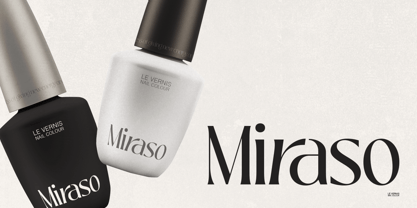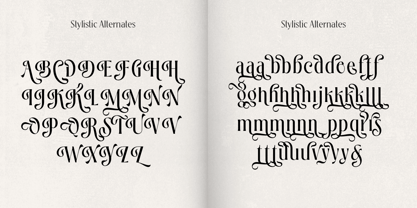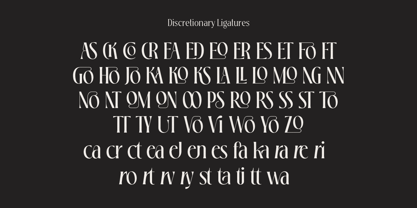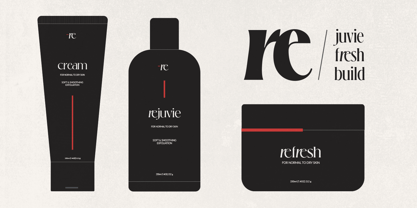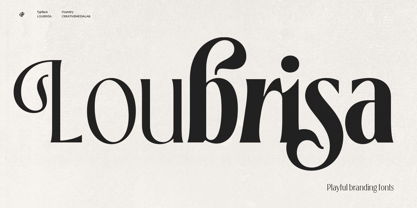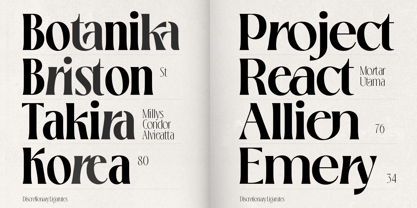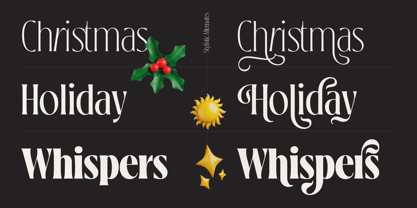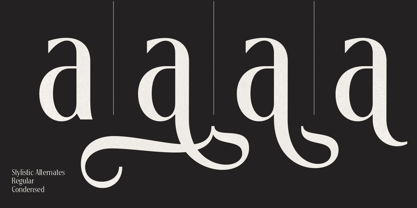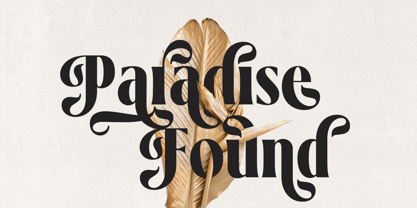
Loubrisa
The Loubrisa Font Family was designed by Kadek Mahardika and published by Creativemedialab. Loubrisa contains 14 styles and family package options. More about this family
Introducing Loubrisa, an elegant and playful serif family, available in 2 widths, Condensed & Normal with a weight of 7 for each type. Loubrisa has many stylistic alternatives and ligatures, suitable for Titles or concepts related to fashion, cosmetics, elegant design or high-end branding, logos, and many more.